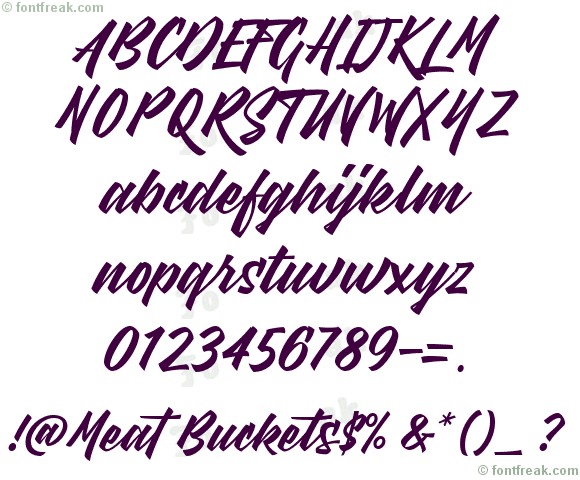
Meat Buckets
About Meat Buckets
Meat Buckets, designed by Clement Nicolle, is a captivating display font that falls within the decorative category. This font features a unique blend of bold, exaggerated strokes, creating a striking visual presence that draws attention. Its playful character shapes are complemented by a moderate contrast in weight, making it suitable for various creative applications. The spacing is thoughtfully crafted to ensure readability while maintaining an artistic flair, with decorative elements that evoke a sense of fun and whimsy.
Ideal for a range of specific use cases, Meat Buckets is perfect for restaurant menus, where its quirky design can highlight the culinary theme and engage diners. It also works exceptionally well for food-related branding, such as logos for butcher shops or gourmet burger joints, adding a touch of personality to the brand. Additionally, this font can be utilized in promotional materials for food festivals or events that celebrate culinary creativity, making it an excellent choice for event posters and flyers. Graphic designers and content creators will find Meat Buckets particularly appealing for social media graphics, where eye-catching typography is essential for attracting audience engagement.
Targeted towards graphic designers, small business owners, and content creators, Meat Buckets stands out in a crowded marketplace. Its distinctive style and adventurous vibe make it a memorable choice that can elevate any project. The Meat Buckets font free download offers an accessible opportunity for creatives to incorporate this playful typeface into their work, enhancing their designs with a unique flair. Whether you're crafting a whimsical invitation or a bold advertisement, this font brings a delightful touch that is sure to leave a lasting impression.